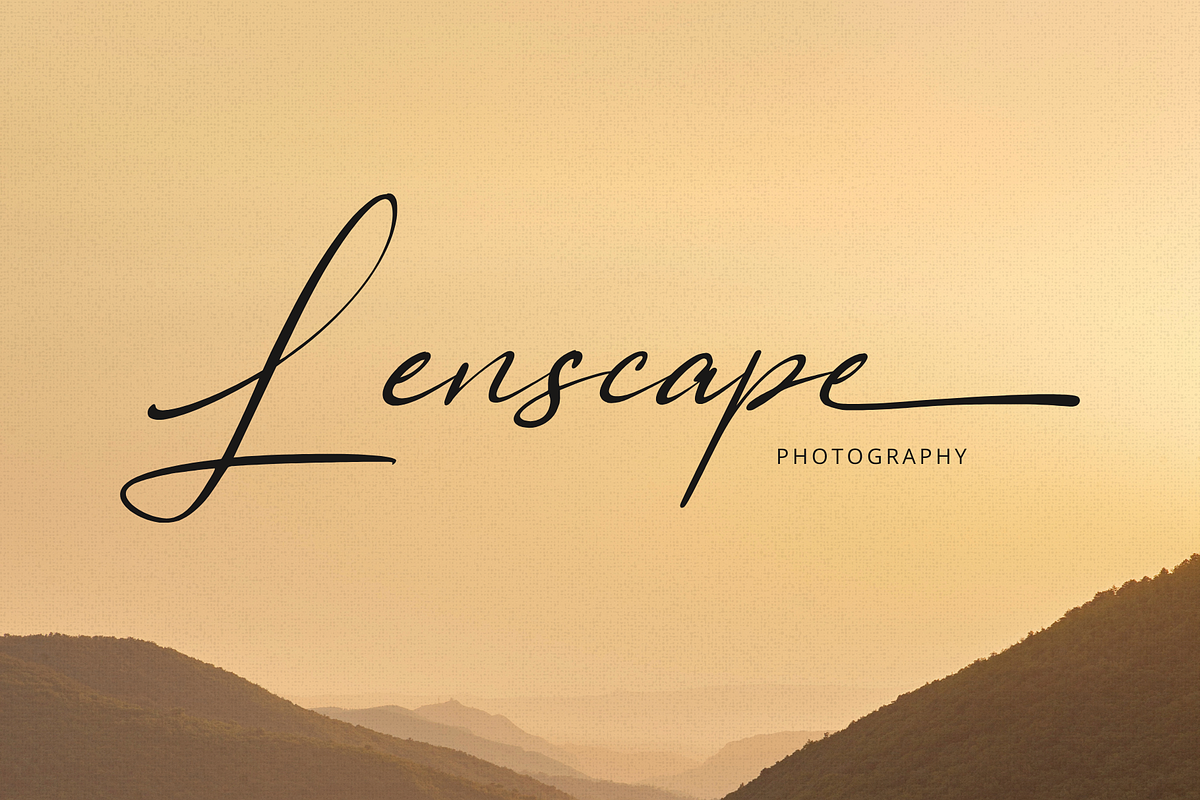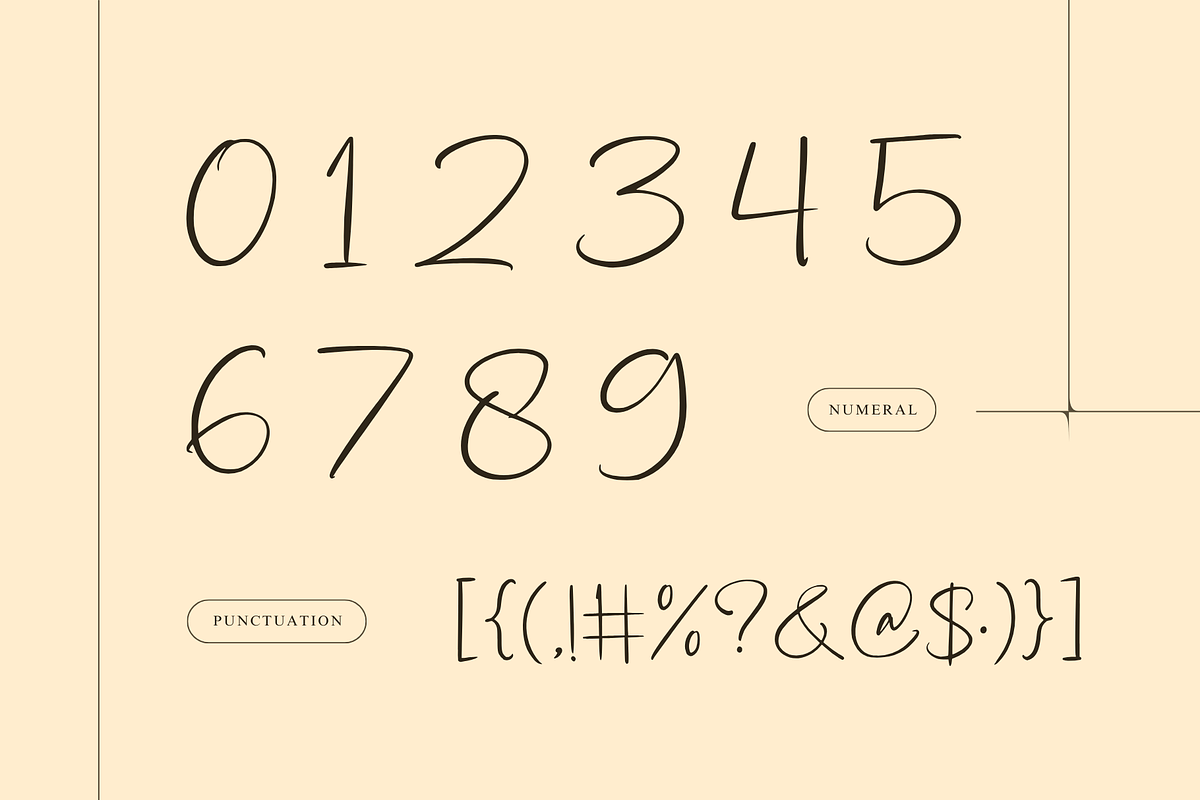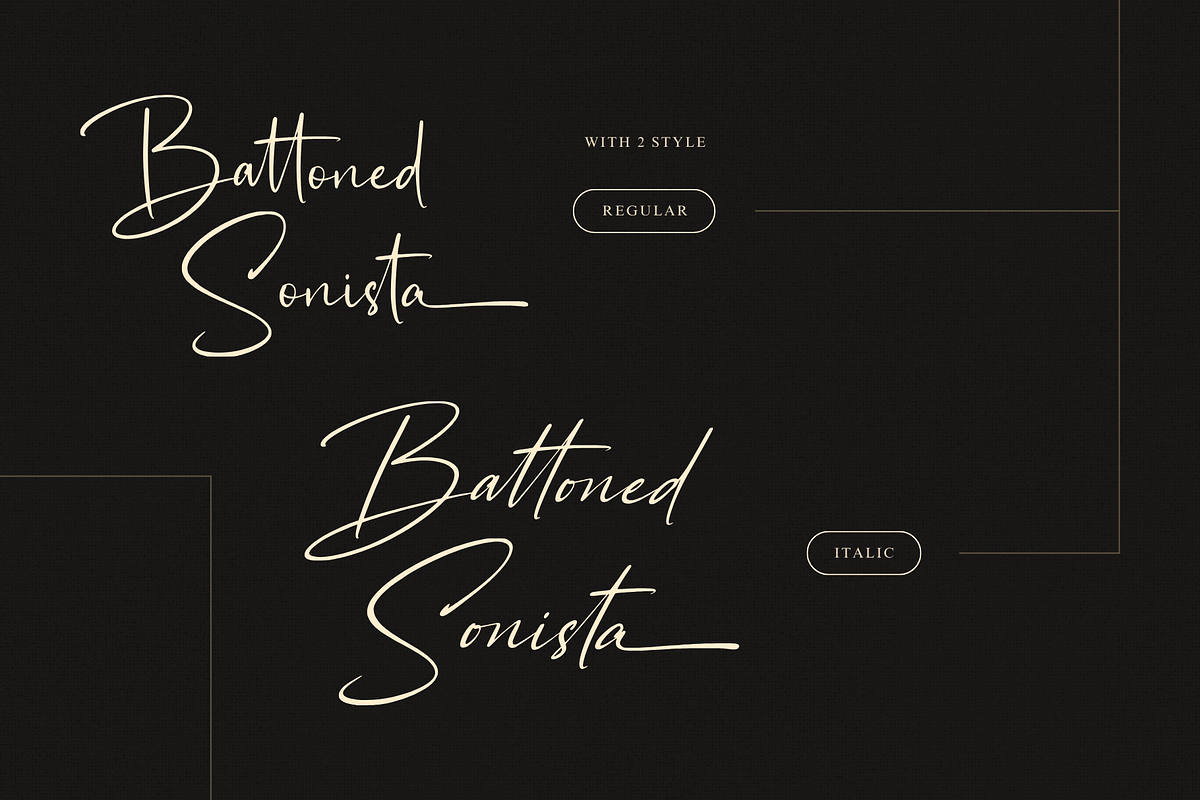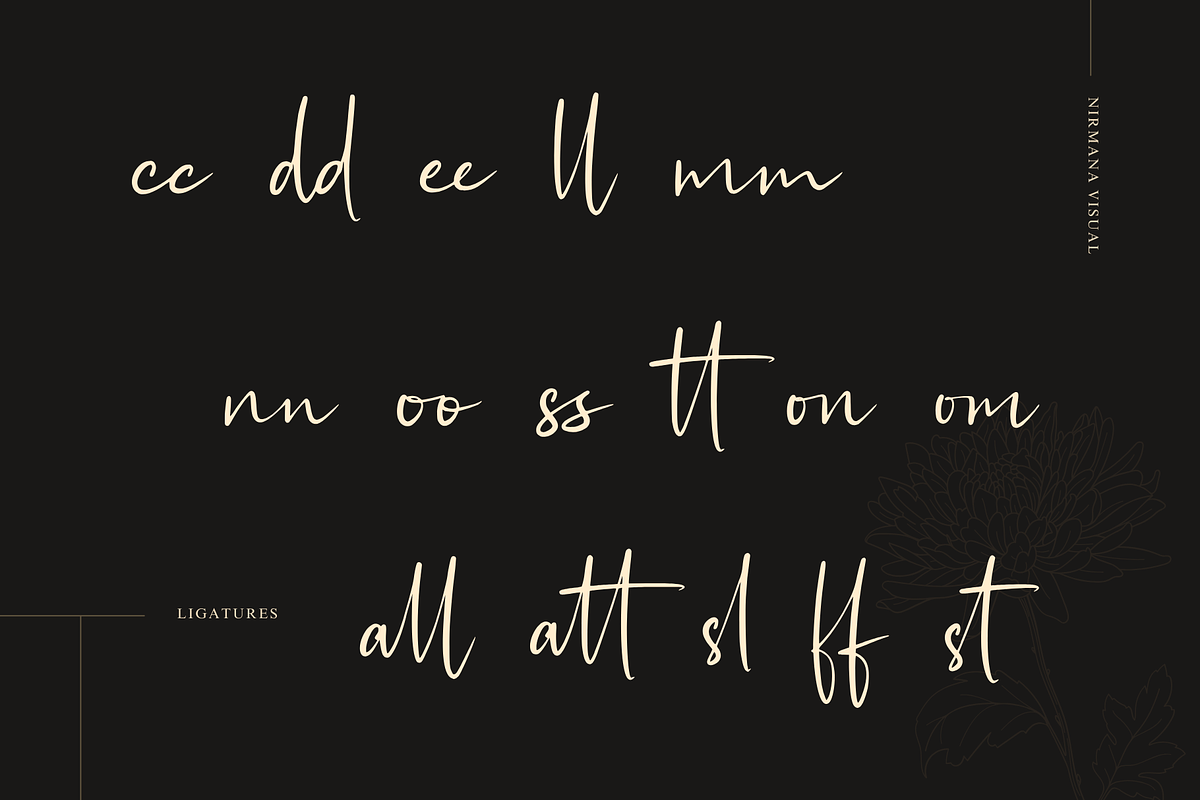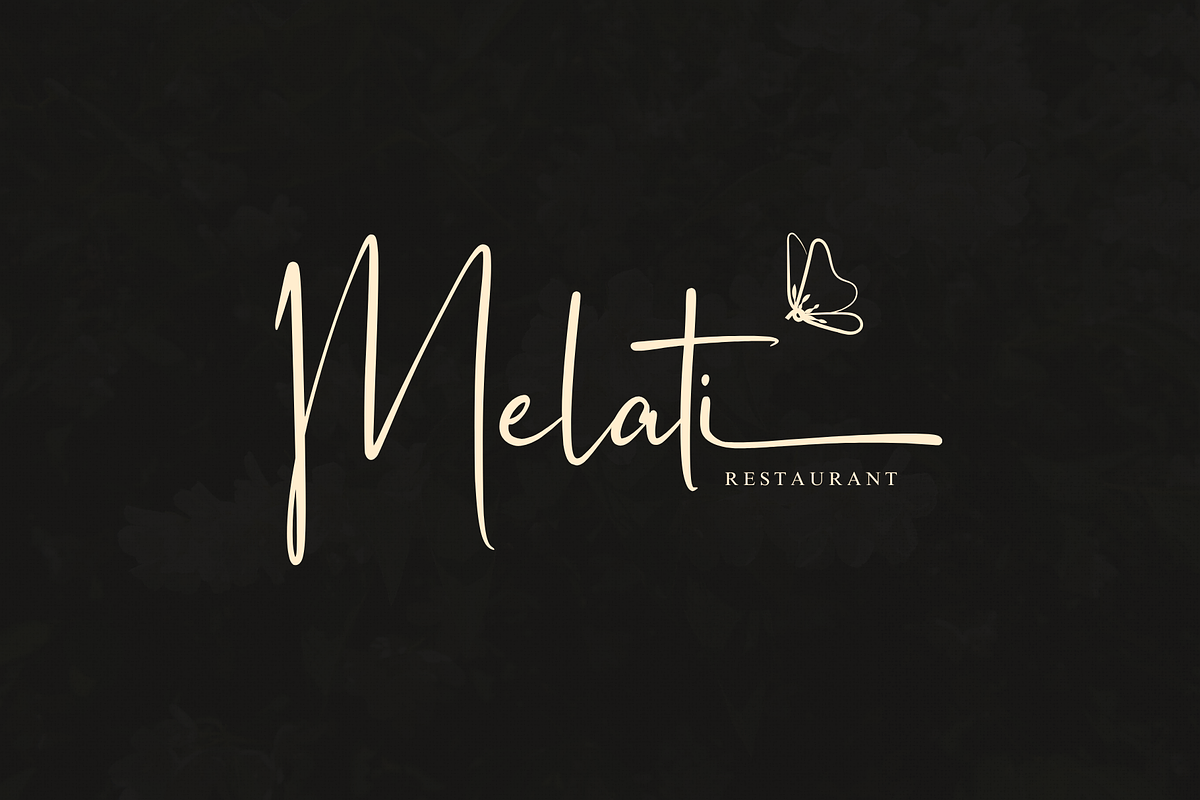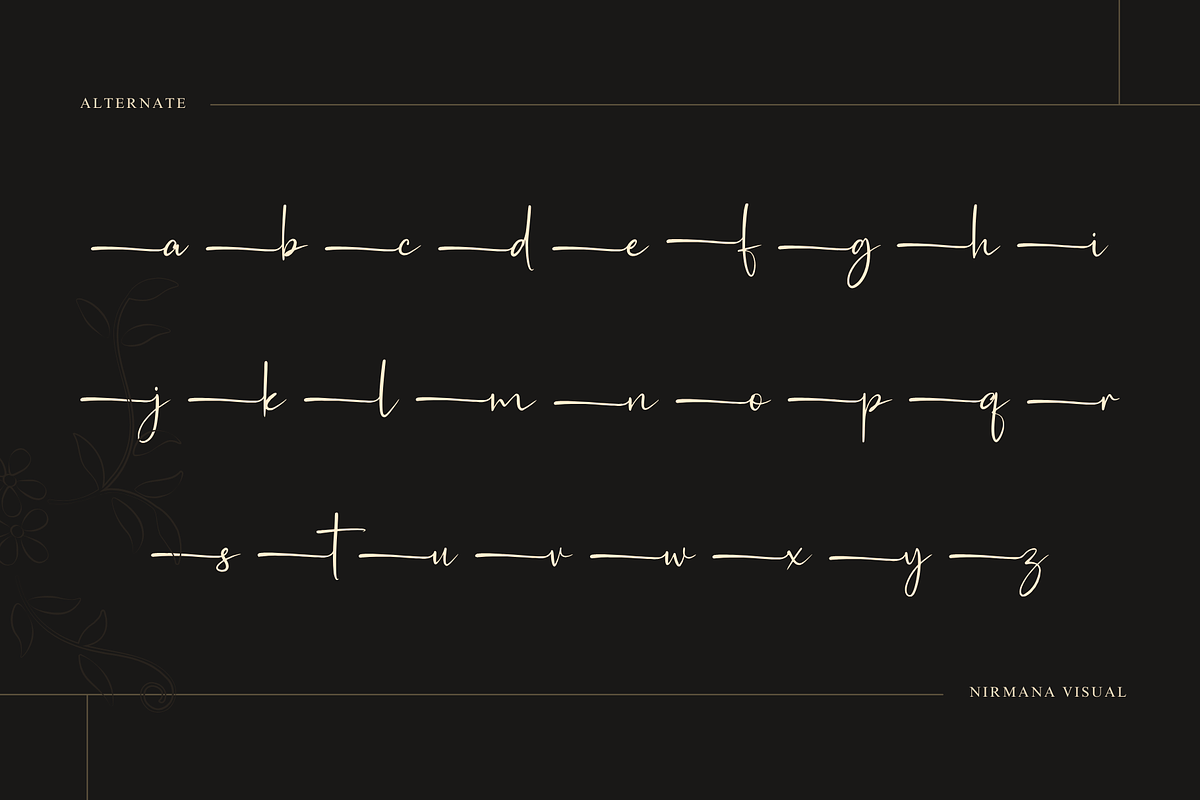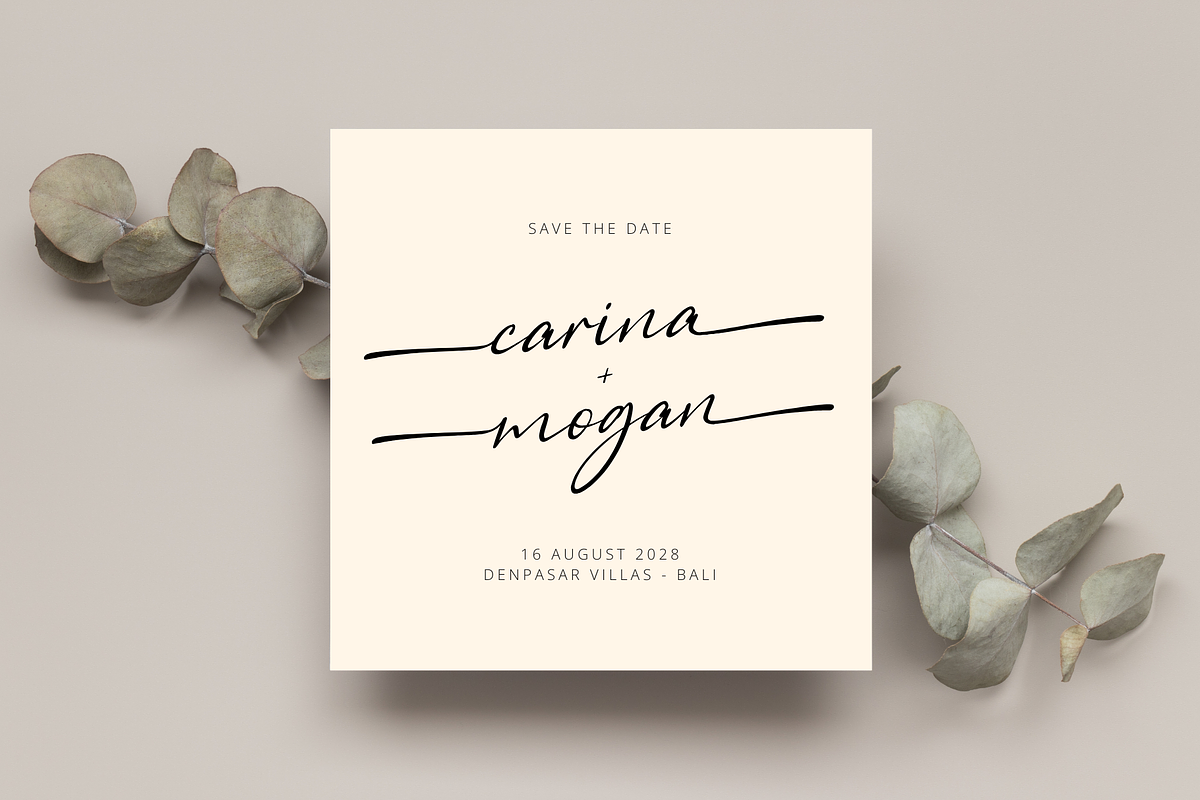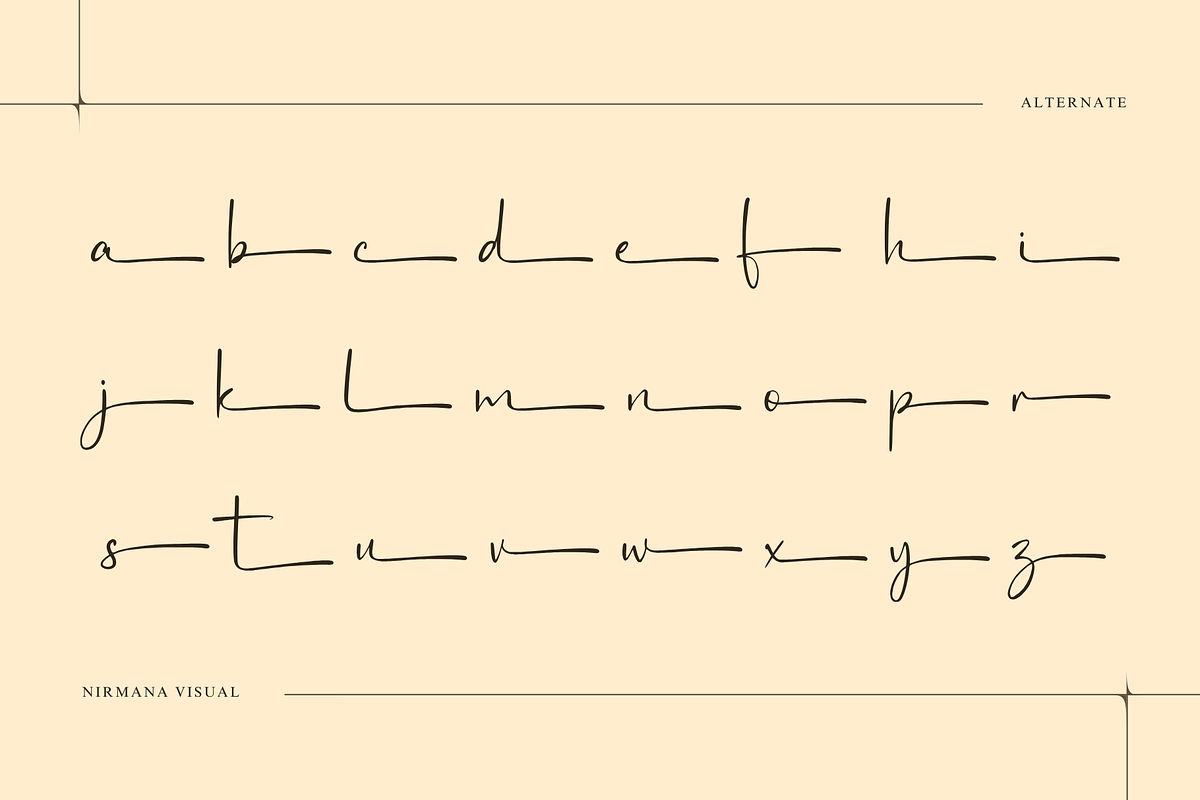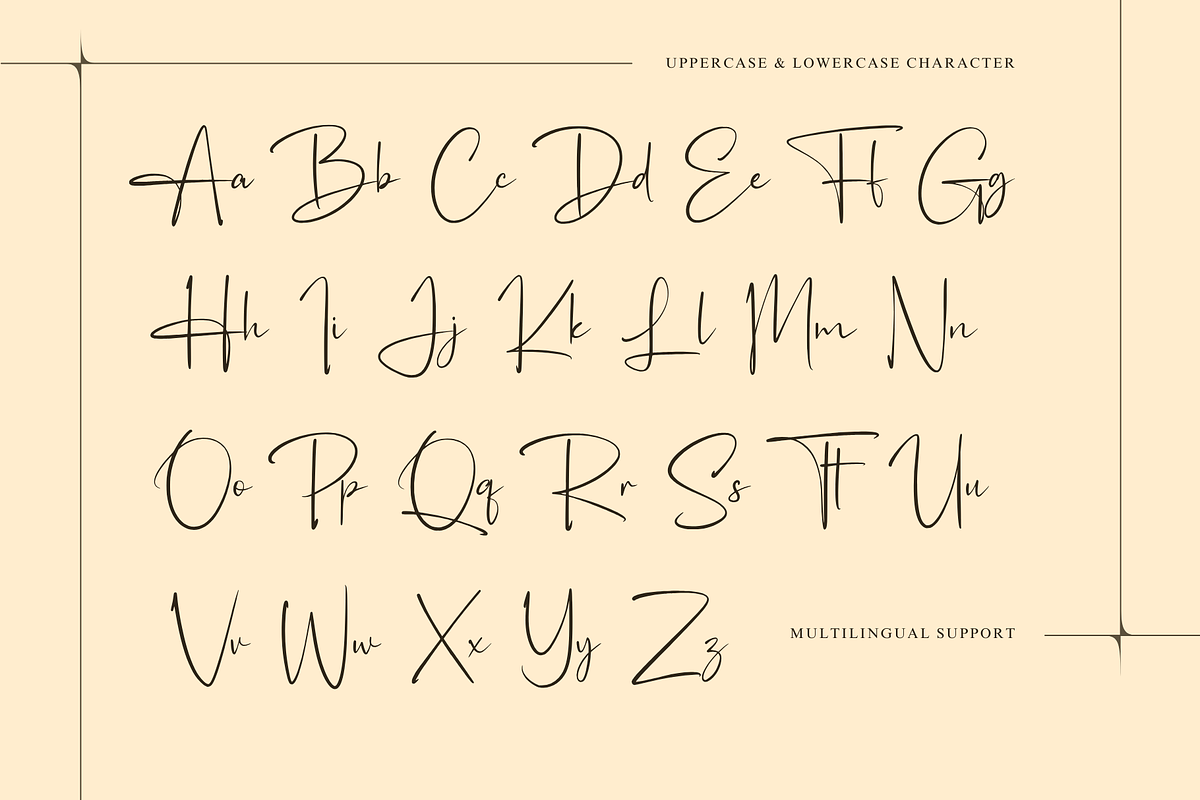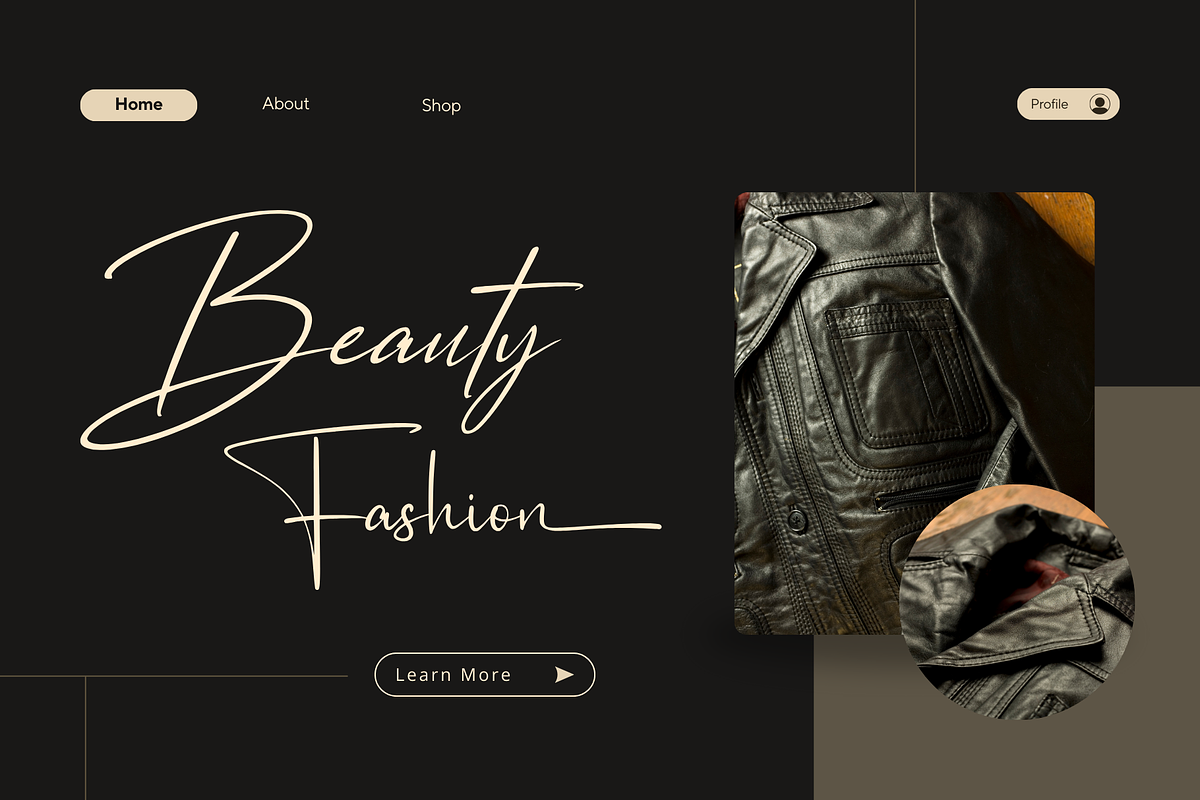
Austrisa - Modern Calligraphy
Austrisa Script offers beautiful typographic harmony for a diversity of design projects, including logos & branding, social media posts, advertisements & product designs.
What you get : In Two Font Styles : Regular & Italic